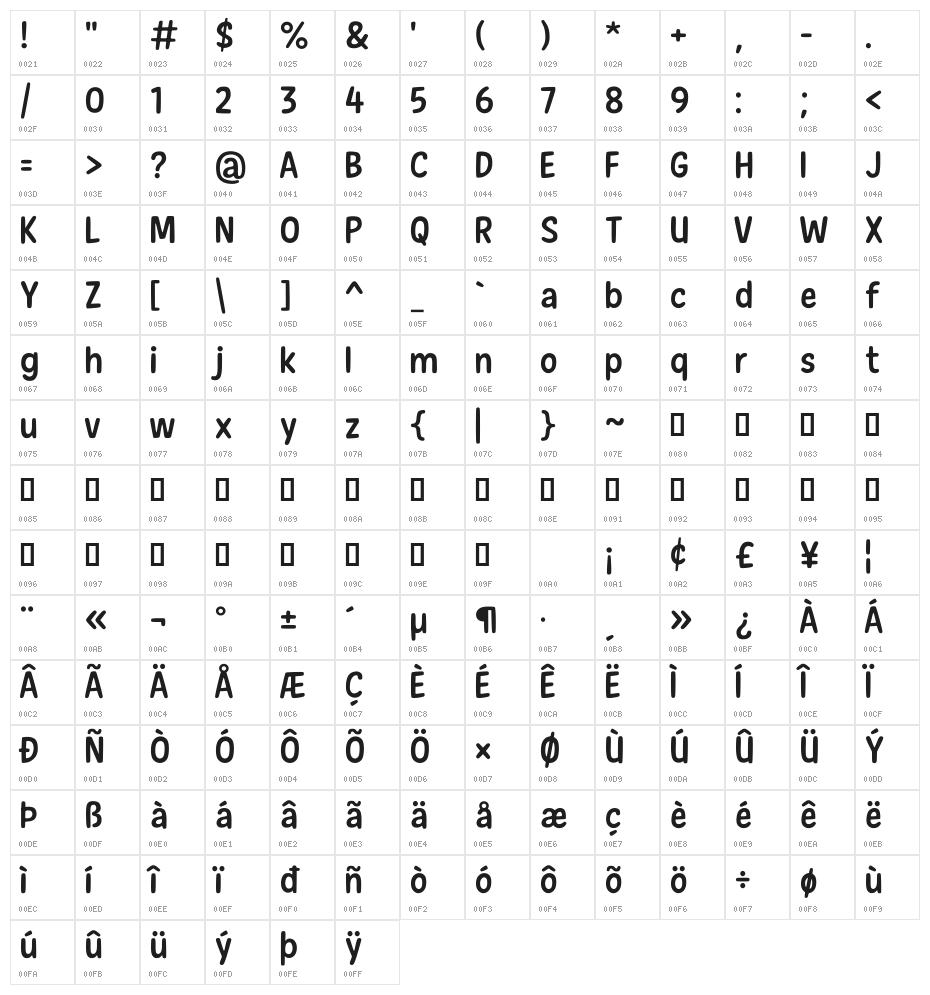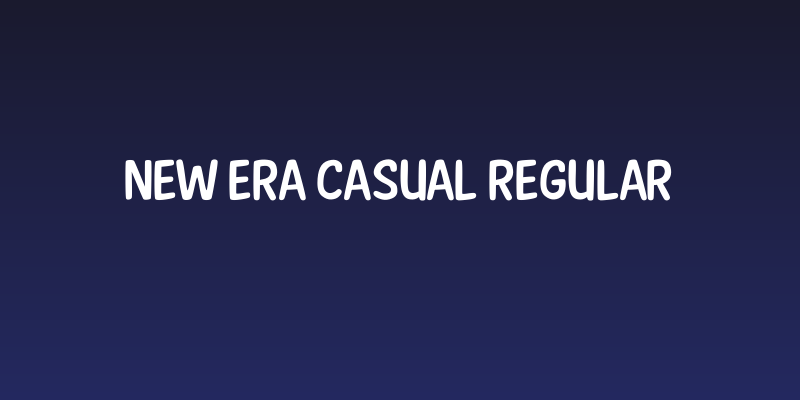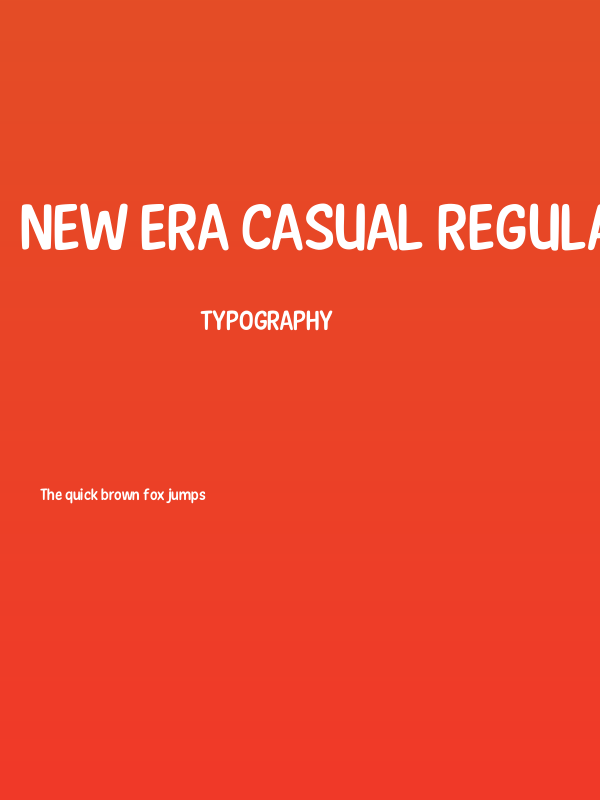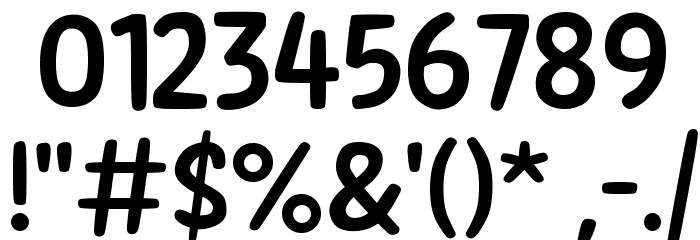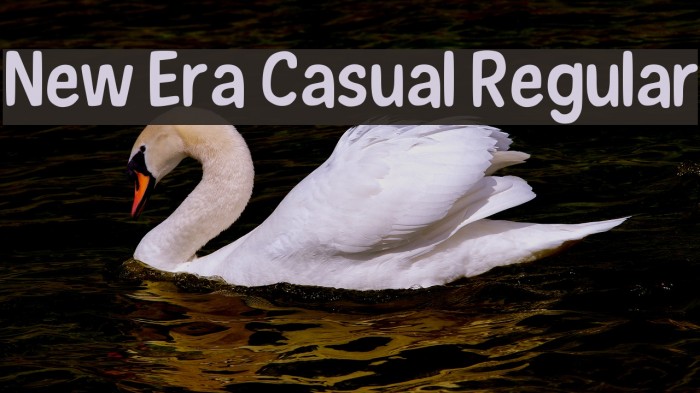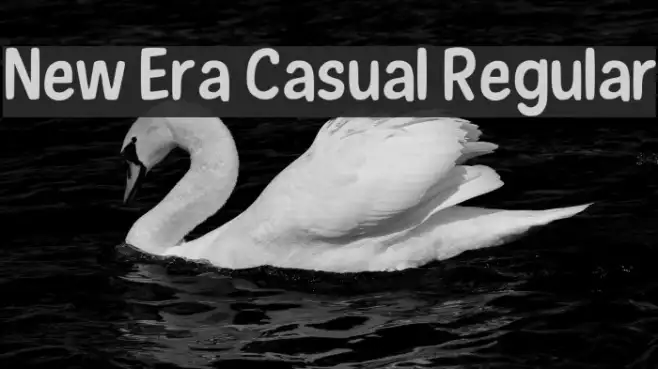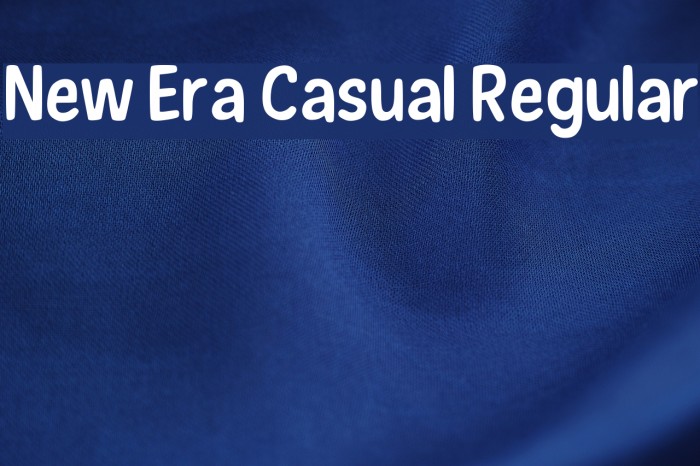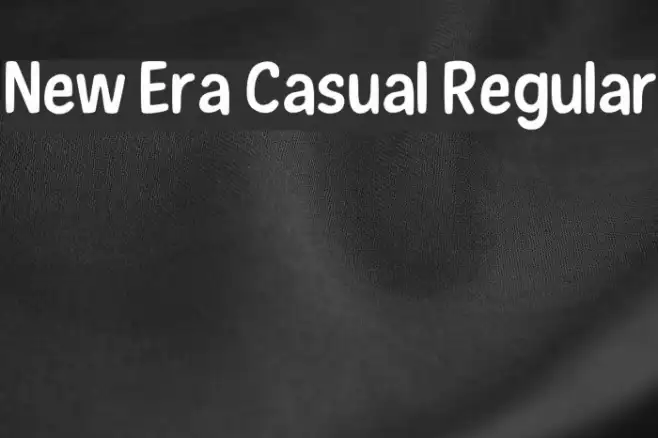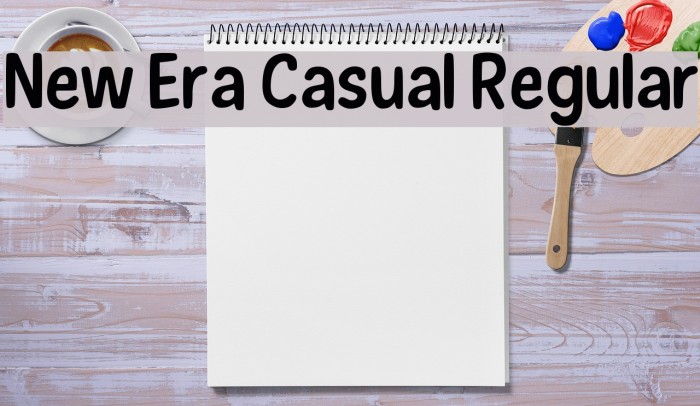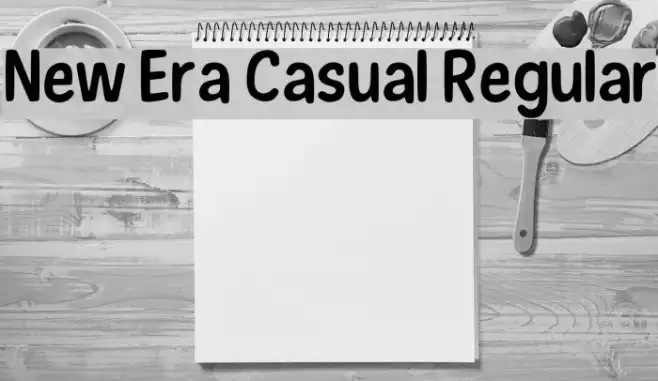
New Era Casual Regular Font
New Era Casual Regular Description
This font features a playful and casual style with rounded edges and a friendly appearance. The characters are bold and have a consistent stroke width, giving them a uniform look. The uppercase and lowercase letters maintain a balanced proportion, making the font easy to read. The numbers and special characters are designed with the same playful aesthetic, ensuring a cohesive look across all text elements. The overall design is approachable and modern, suitable for a variety of informal applications.
| Proposed Projects | Ideal for children's books, casual branding, social media graphics, and playful event invitations. |